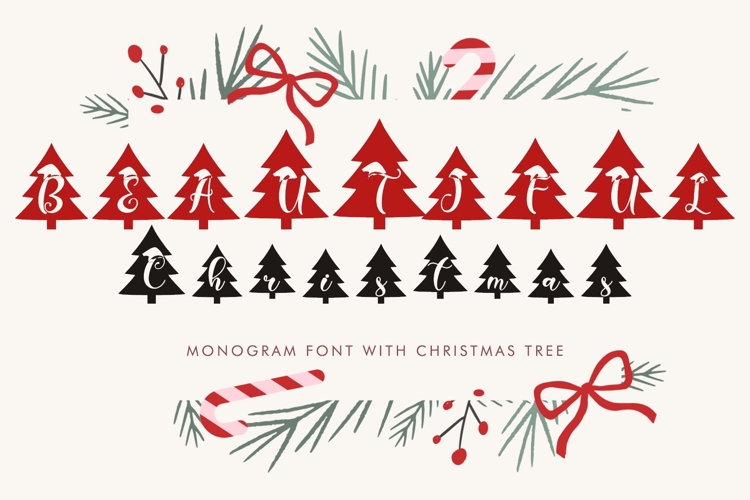
"Beautiful Christmas Tree" is a handwritten font combined with a beautiful and cute monogram Christmas tree. This font features uppercase and lowercase letters, numerals, punctuations, and multilingual support. It's perfect for Christmas, Christmas greetings, holidays, logos, stickers, banners, posters, branding, Halloween, winter, Valentine's Day, and more.